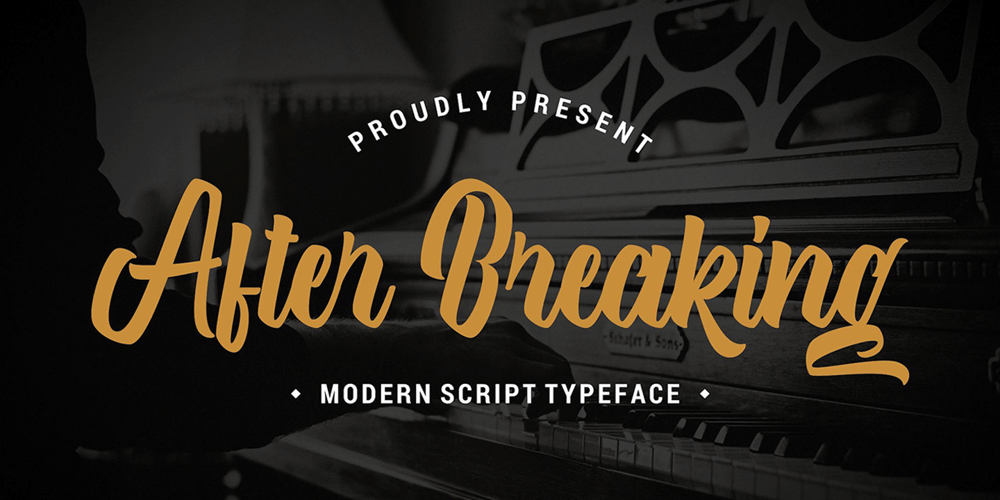
After Breaking Font Family was designed by Virgiawan Listanto and published by Stringlabs Creative Studio. After Breaking contains 1 styles and family package options. After Breaking is a nostalgic script with a personal feel. Get inspired by its authentic charm! After Breaking is a flowing and elegant handwritten font, created with the help of a brush pen. Get inspired by its unique and beautiful style and add it to your favorite designs!